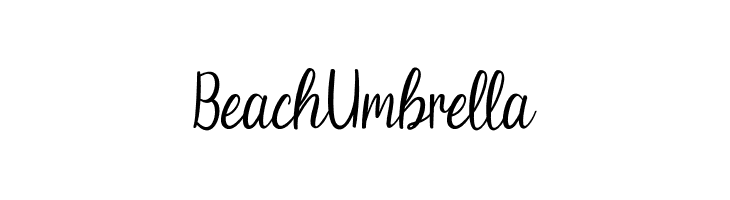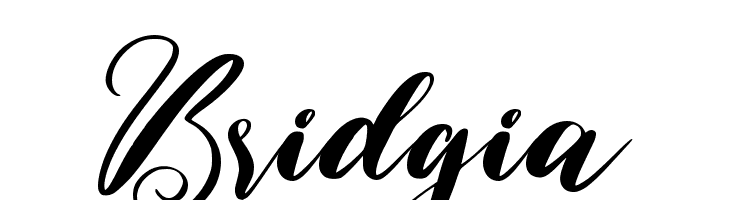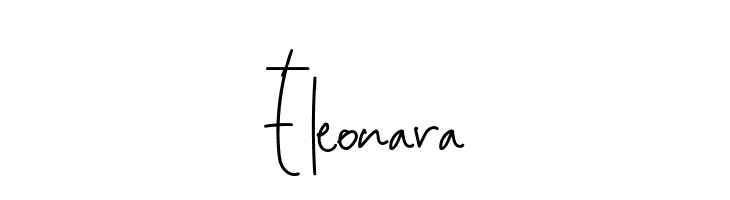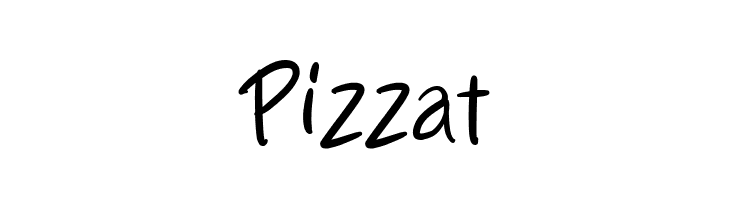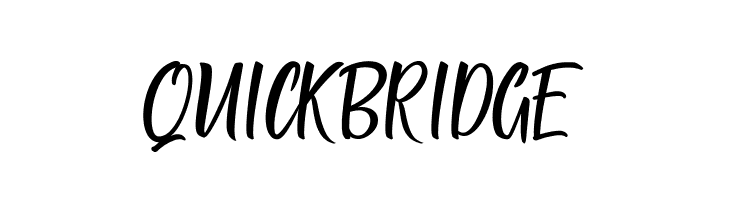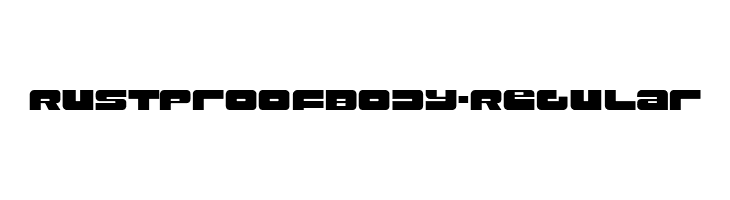
An elegant script font with decorative flourishes and smooth cursive forms.
A flowing, cursive handwritten font with elegant, connected strokes.
A sleek, minimalistic font with thin, uniform lines and a modern appearance.
A bold, angular, and futuristic italic font with a sci-fi aesthetic.
A playful and casual script font with flowing, connected letterforms.
A bold, slab serif font with a vintage yet modern appeal.
A bold, geometric font with a three-dimensional, shadowed effect.
A spooky, mummy-themed decorative font with a textured, layered design.
A playful, hand-drawn font with a whimsical and artistic style.
A bold, pixelated font with a retro digital aesthetic.